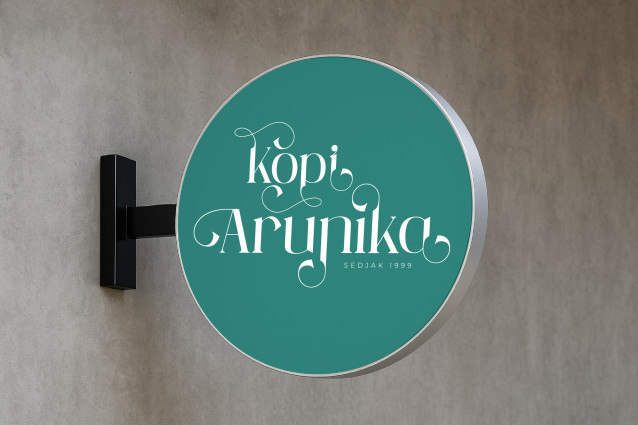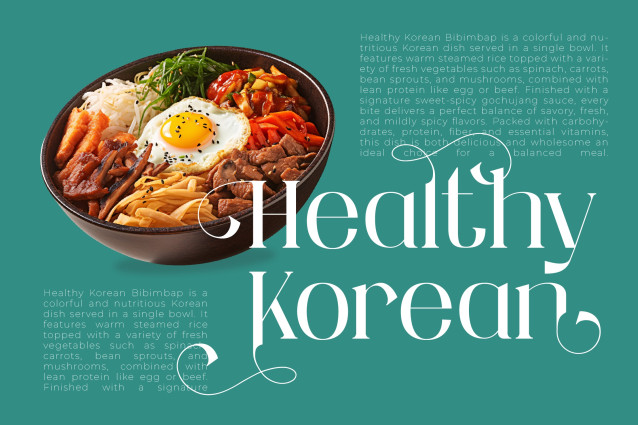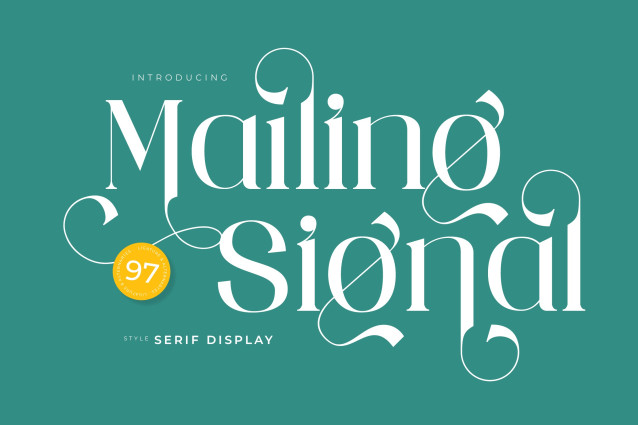
Mailing Signal Font
Mailing Signal Font is a refined serif display font that blends Limeless elegance with a modern creative edge. Each letter is carefully designed with bold strokes and delicate curves, cre-ating a perfect balance between strength and sophistication., The sharp serifs and high contrast details give the font, a distinguished presence, making it. both eye-catching and versatile.
This typeface is ideal for editorial design, luxury branding, packaging, fashion magazines, in-vitations, and statement posters. Whether you are designing a bold headline, an elegant logotype, or stylish product packaging, Mailing Signal brings a touch of exclusivity and char-acter to your work.
With its harmonious mix of classic serif tradition and contemporary aesthetics, mailing sional ensures readability without sacrificing artistry, It’s more than just a font-it’s a design statement that elevates any creative project with confidence, clarity, and style.